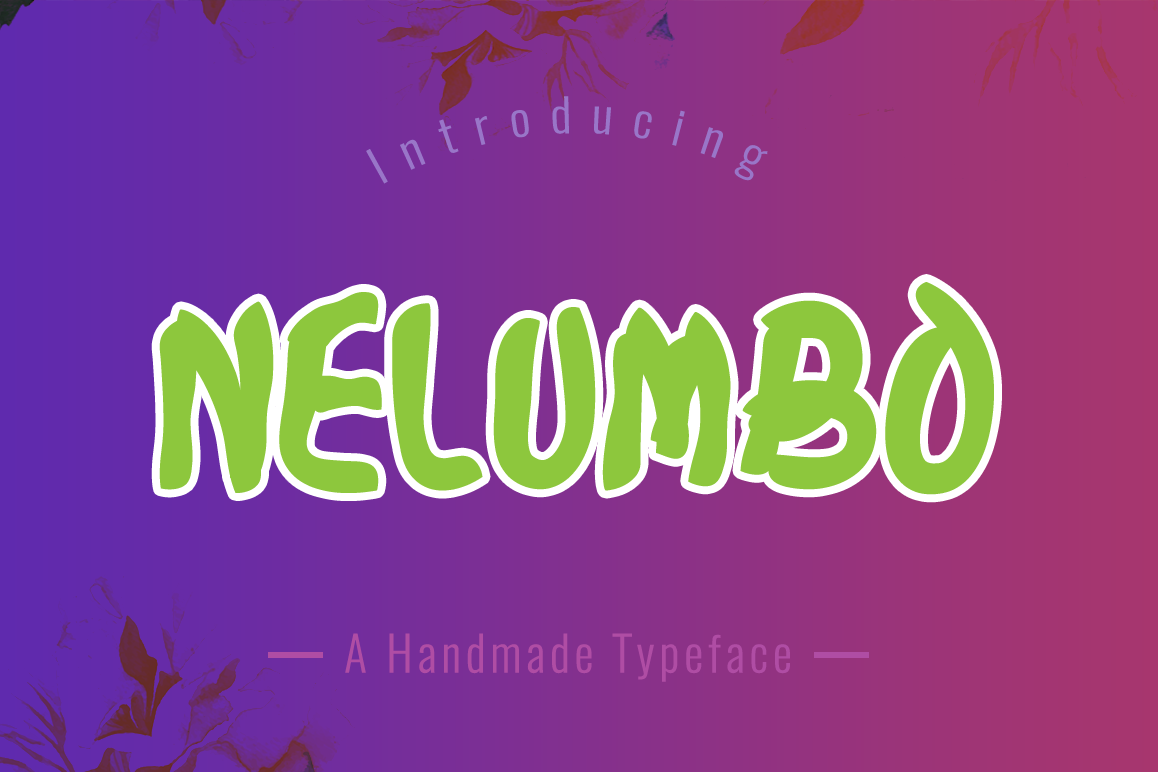
Nelumbo is a modern handmade display font. Nelumbo is perfectly suited to stationery, logos, t-shirt, paper, print design, website header, photo frame, flyer, music cover, poster, image slider and much more.What's Included: